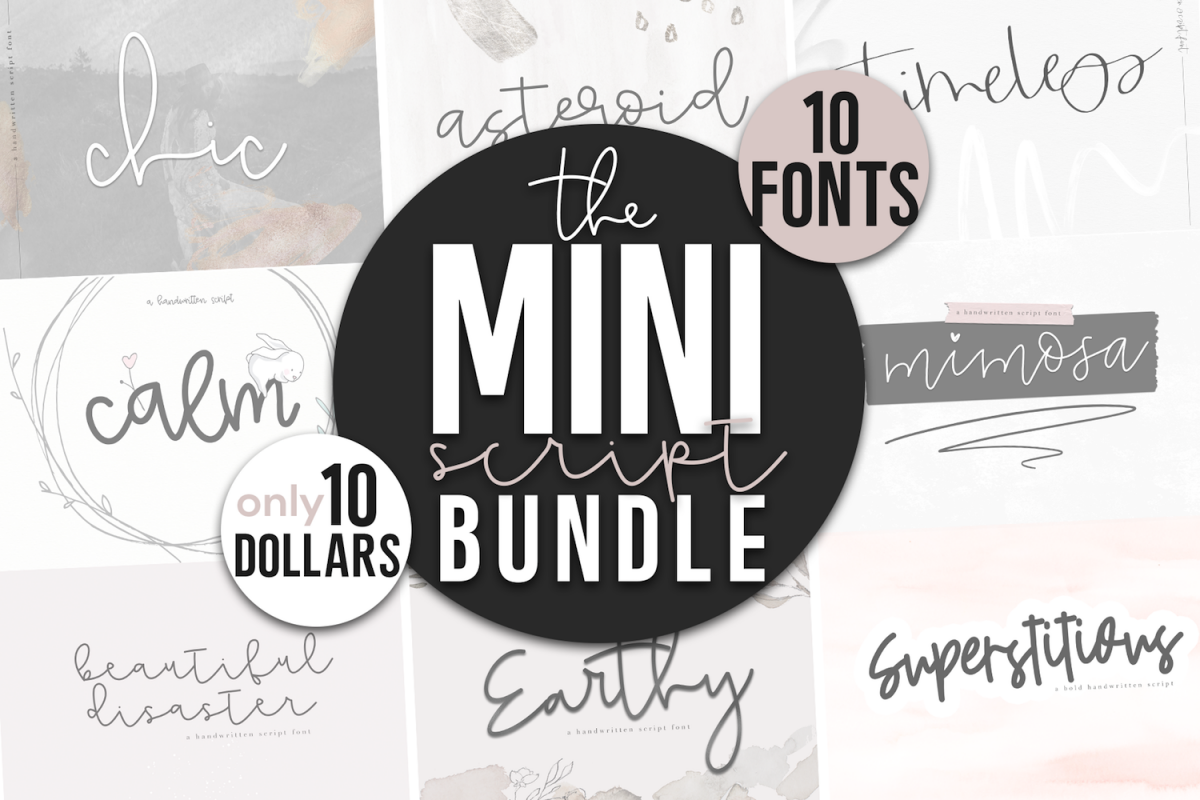
Mini Handwritten Script Font Bundle - 10 Fonts
Fonts Include:
• Earthy
• Sweet Dreams
• Chic
• Asteroid
• Beautiful Disaster
• Mimosa
• Superstitious
• Timeless
• Calm
• Extraordinary